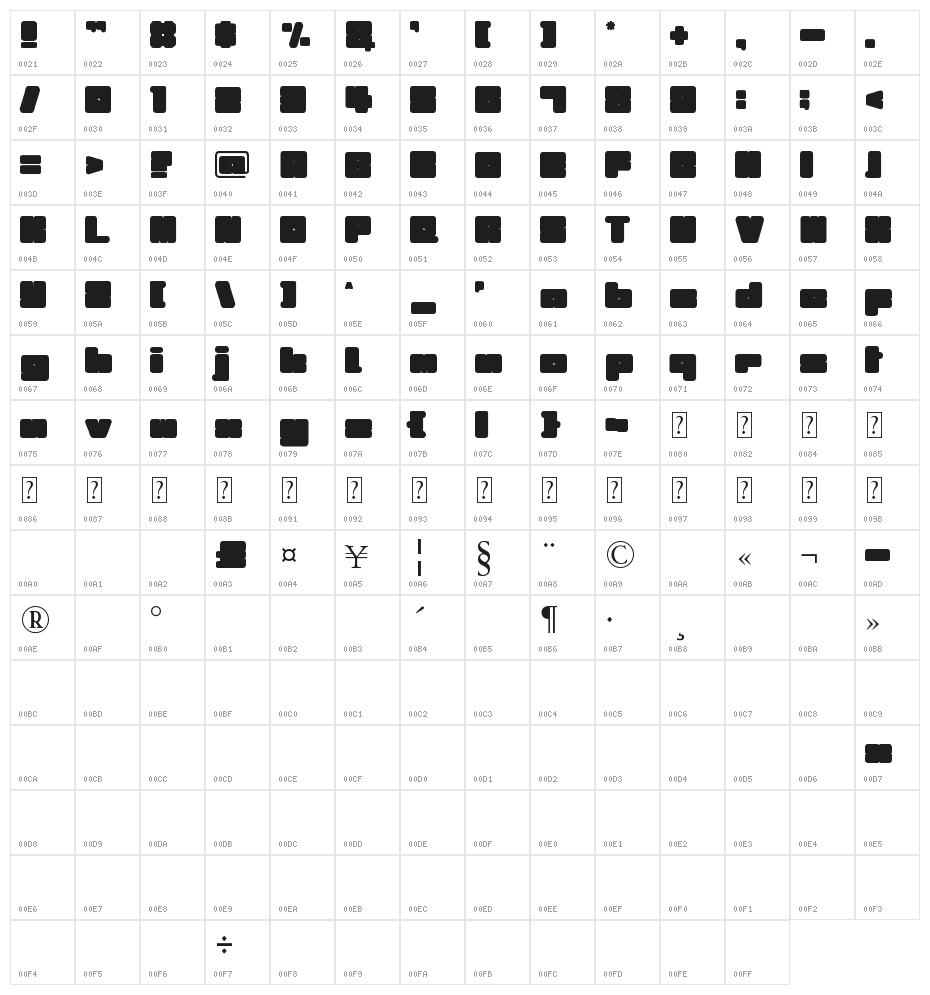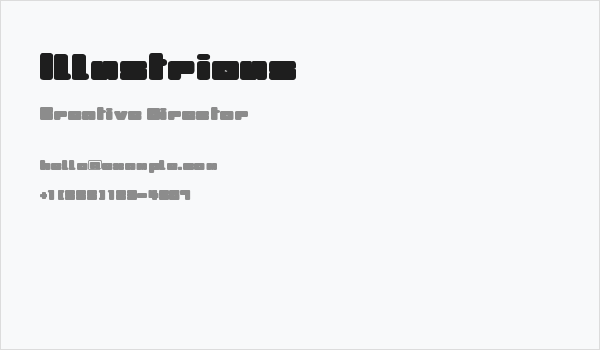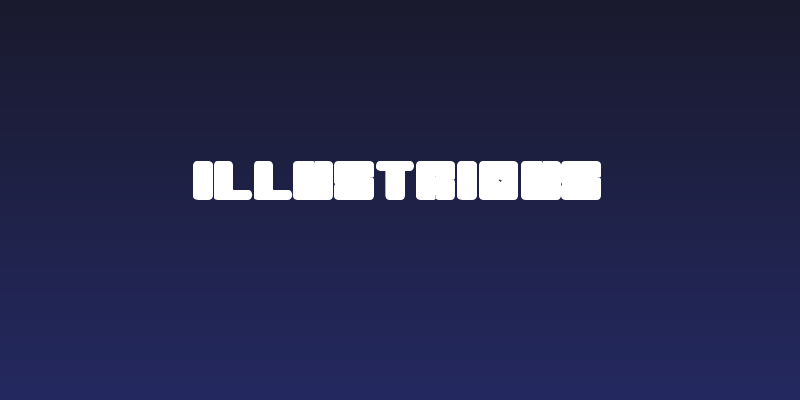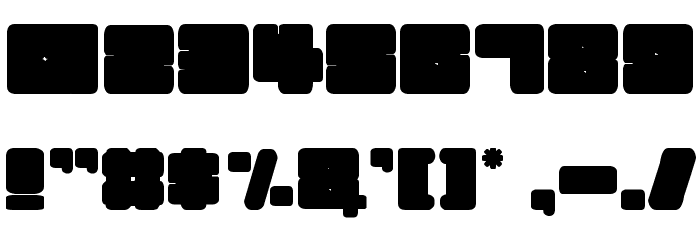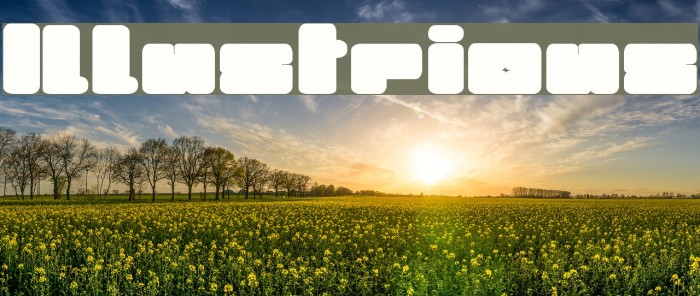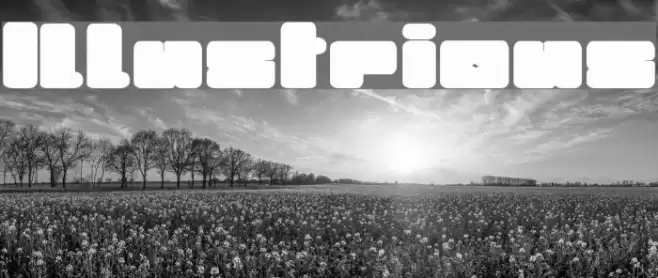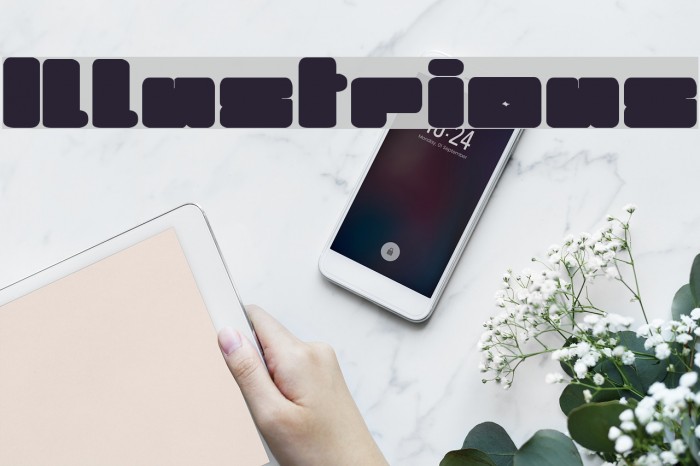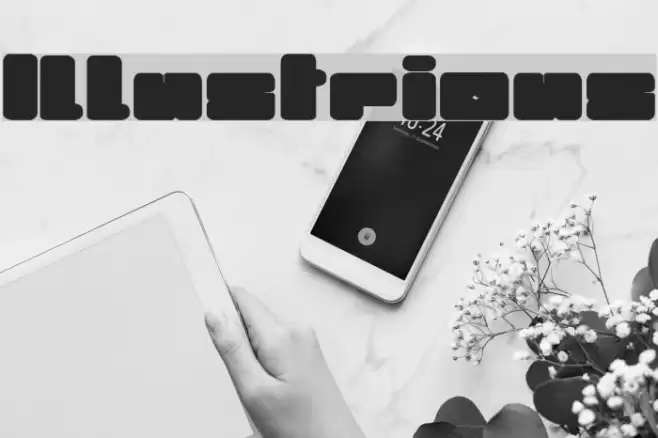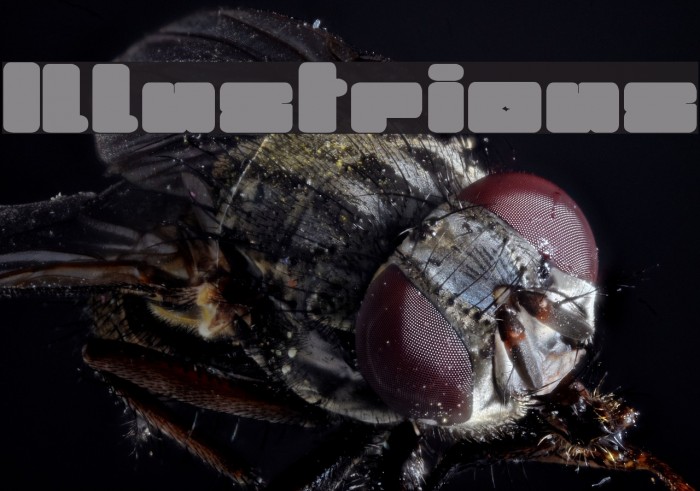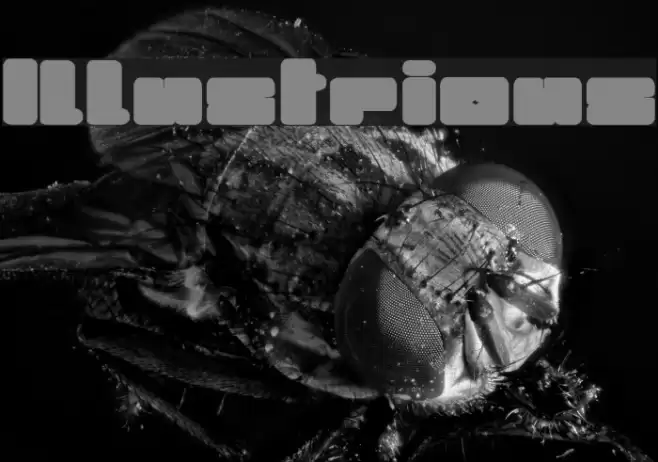
Illustrious Font
Illustrious Description
This font features bold, rounded characters with a distinctly modern and playful appearance. The letters are uniformly thick, creating a strong visual impact. Each character is designed with a consistent width, contributing to a cohesive and balanced look. The rounded edges soften the overall feel, making it approachable and friendly. The font's geometric style is evident in its symmetrical and structured form, which maintains readability despite its boldness. The numbers and special characters follow the same design principles, ensuring uniformity across all glyphs. This font is ideal for projects that require a bold statement while retaining a sense of fun and approachability.
| Proposed Projects | Perfect for branding, posters, children's books, and playful advertising campaigns. |